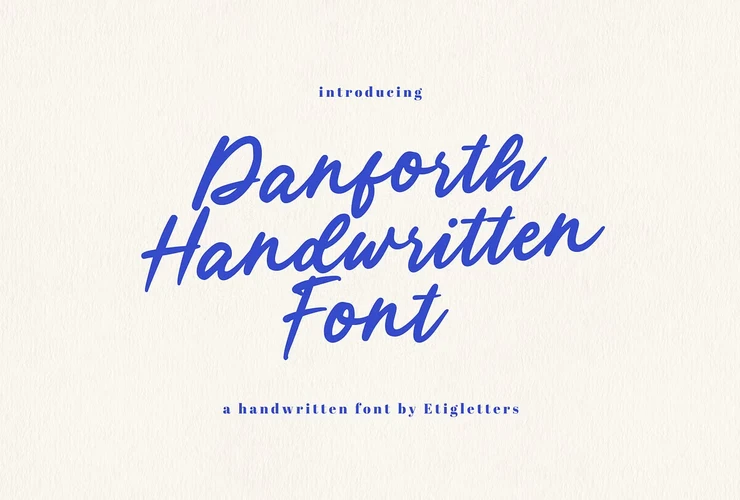
Elevate Your Designs with Danforth Handwritten Font
Danforth Handwritten Font, crafted by Etigletters, is a beautiful and versatile typeface that brings a personal touch to various design projects. Ideal for wedding invitations, branding materials, social media templates, and more, Danforth is designed to enhance your creative endeavors with its elegant and handcrafted aesthetic.
Key Features of Danforth Handwritten Font
Versatile Applications: Perfect for a range of design needs, including wedding invitations, craft projects, promotional materials, t-shirts, and social media templates.
PUA Encoded: Allows easy access to all glyphs and special characters, enhancing the creative possibilities.
Perfect Pairing: Combines beautifully with sans serif fonts, adding a perfect touch to your design projects.
Ideal Uses for Danforth Handwritten Font
Danforth Handwritten Font is designed to add a touch of elegance and personality to various design projects:
Wedding Invitations: Create stunning and memorable wedding invitations.
Craft Projects: Enhance your DIY and craft projects with a beautiful handwritten touch.
Branding Materials: Elevate your brand identity with a unique and elegant font.
Social Media Templates: Make your social media posts stand out with a personal and creative touch.
Promotional Flyers: Design eye-catching promotional materials that capture attention.
T-Shirts: Create stylish and trendy t-shirt designs.
Enhance Your Creativity with Danforth Handwritten Font
Etigletters’ Danforth Handwritten Font offers a unique and elegant touch to any design project. Its versatility and compatibility make it an essential tool for designers looking to add a personal and handcrafted aesthetic to their work.